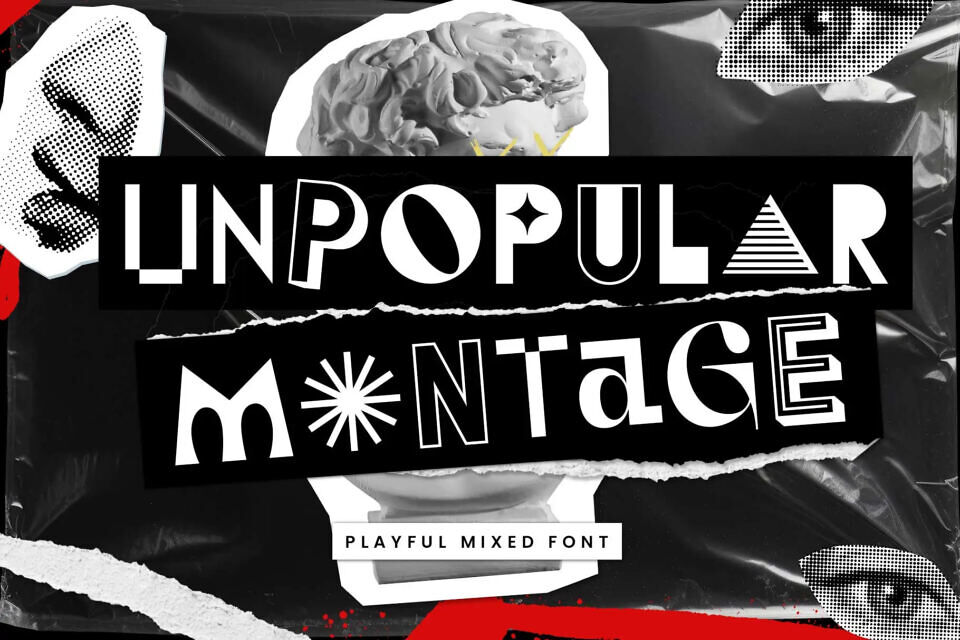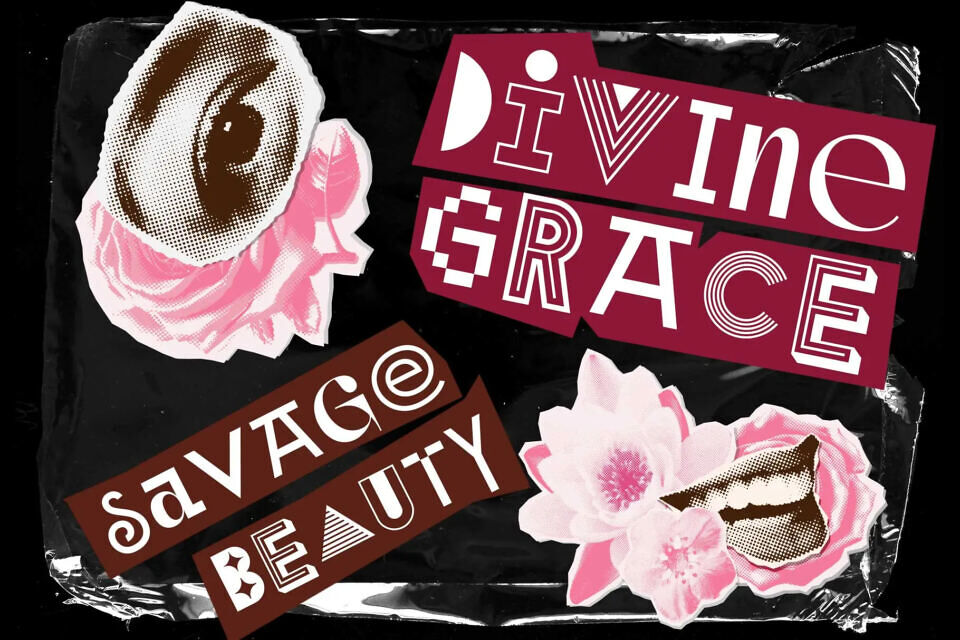
Meet “Unpopular Montage”, a daring font that combines modern collage and retro flair. It blends sans and serif styles, geometry and organic shapes, creating a unique fusion.
Each letter is a distinct piece, merged in imperfect harmony, defying uniformity. With many alternate characters, you can craft your own rhythm and expression. This font is ideal for posters, magazines, and branding that embracing freedom and contrast, evoking a dynamic, modern collage feel.